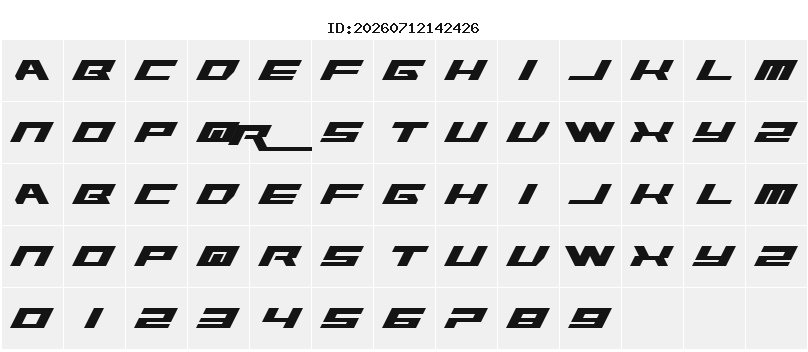
• Font Name: Rawhide Raw 2012
• Full Font Name: Rawhide Raw 2012 Regular
• Designer: Andrew McCluskey
• Description: “Rawhide Raw 2012” was built with FontStruct
Rawhide Raw 2012.ttf is a modern, elegant sans-serif font designed for ultimate readability and visual harmony. Perfect for branding, headlines, web design, and print materials.